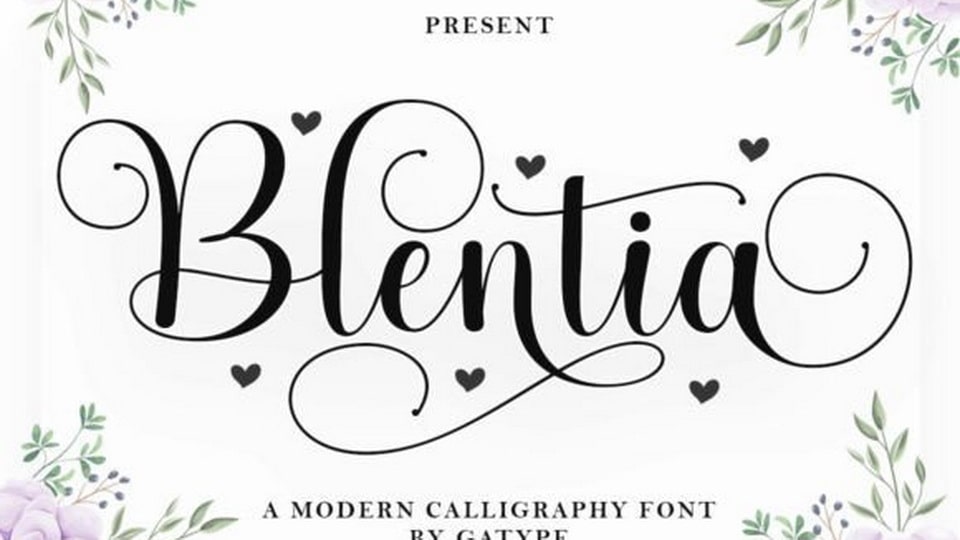
Download Blentia font, a flowing handwritten typeface, described by an elegant touch, perfect for your favorite projects. With its incredibly distinct and timeless style Blentia font is perfect to create spectacular designs.